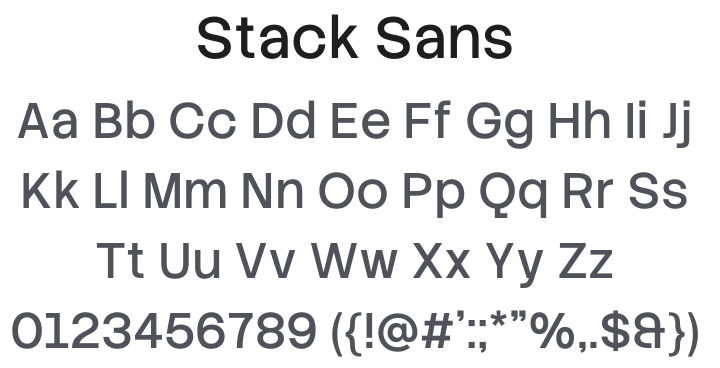
Stack Sans Font Family
by Koto Studio
About Stack Sans
Stack Sans is a sans serif font family rooted in modernist inspiration, striking a balance between timelessness and innovation. Its distinctive notched detailing, inspired by the building process, creates a recognizable signature that is unique to Stack Sans. Crafted uniquely for Stack Overflow, Stack Sans has both a hedline and text style that allow for typographic expression regardless of scale.